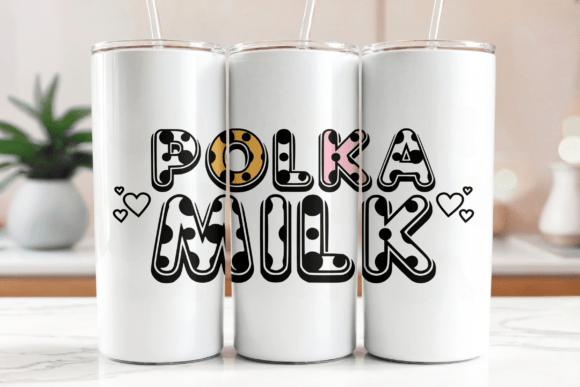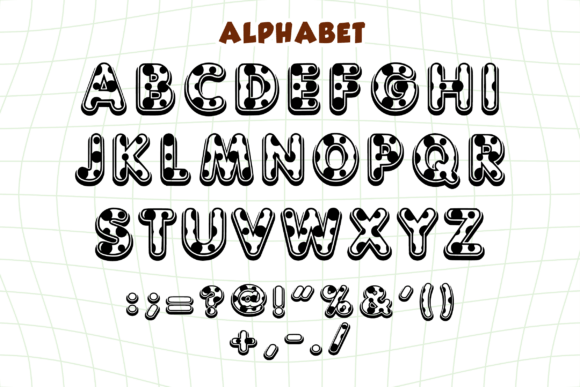
Introduction to Polka Milk Font
As designers, we’ve all been there – staring at a blank canvas, trying to bring our creative project to life. But sometimes, all it takes is the right font to spark inspiration. That’s where the Polka Milk Font comes in – a delightful and refreshing design resource that’s sure to add a touch of whimsy to your next project.
With its bubbly and charismatic characters, the Polka Milk Font is perfect for beverage-related design themes, from t-shirts and mugs to animations and comic titles. Whether you’re working on a free download or a high-quality commercial project, this font is sure to bring a smile to your customers’ faces. And with its transparent background, you can easily use it with any design element to create a cohesive look.
- Unique design style with a playful, whimsical feel, perfect for creative projects
- High-quality font with crisp, clear lines and precise details, suitable for both digital and print design applications
Honest Review: Polka Milk Font
As a designer, I’ve worked with numerous fonts, but the Polka Milk Font caught my attention for its unique aesthetic. I decided to dive deeper and share my honest review.
What works well: ✨ The Polka Milk Font offers a high-quality design that’s perfect for creative projects. Its playful, whimsical feel makes it ideal for branding, packaging, and digital design. The font is also available as a free download, making it an excellent resource for designers on a budget.
The font features a transparent background, allowing for seamless integration with other design elements. I appreciate the designer’s attention to detail in crafting a font that’s both visually appealing and functional.
- Key Features: Playful, whimsical feel, transparent background, high-quality design
- Best For: Branding, packaging, digital design, creative projects
Limitations: ⚠️ While the Polka Milk Font is excellent for most design projects, it may not be suitable for formal or professional settings where a more traditional font is required.
Overall impression: I’m impressed with the Polka Milk Font’s unique design and high-quality execution. It’s an excellent resource for designers looking to add a touch of personality to their creative projects.
The Polka Milk Font is a unique and creative design resource ideal for various projects. This font features a transparent background, making it perfect for adding a touch of whimsy to your designs.
The Polka Milk Font is ideal for various creative projects, including:
Party and event branding
Children’s book illustrations
Food and drink packaging